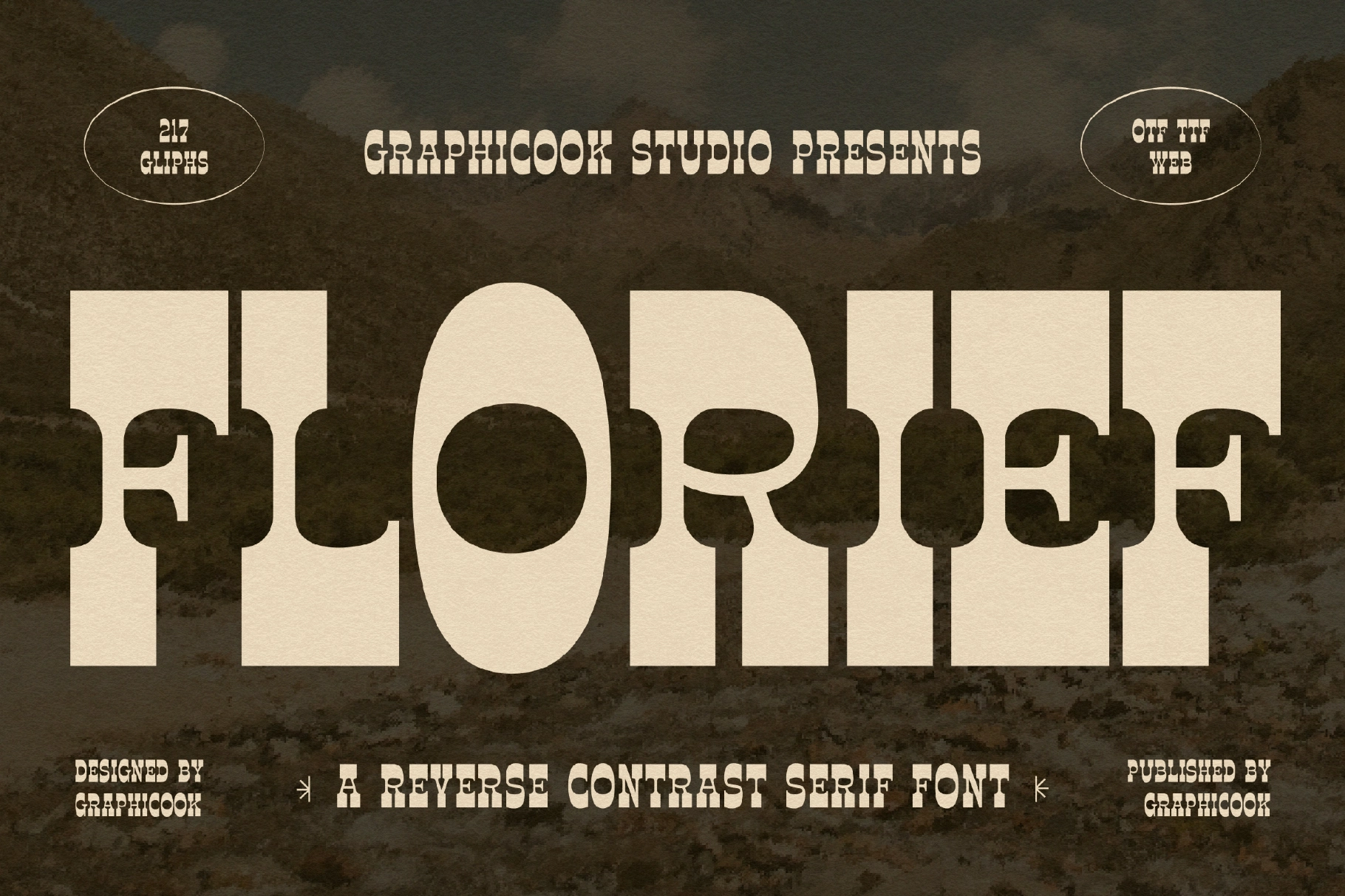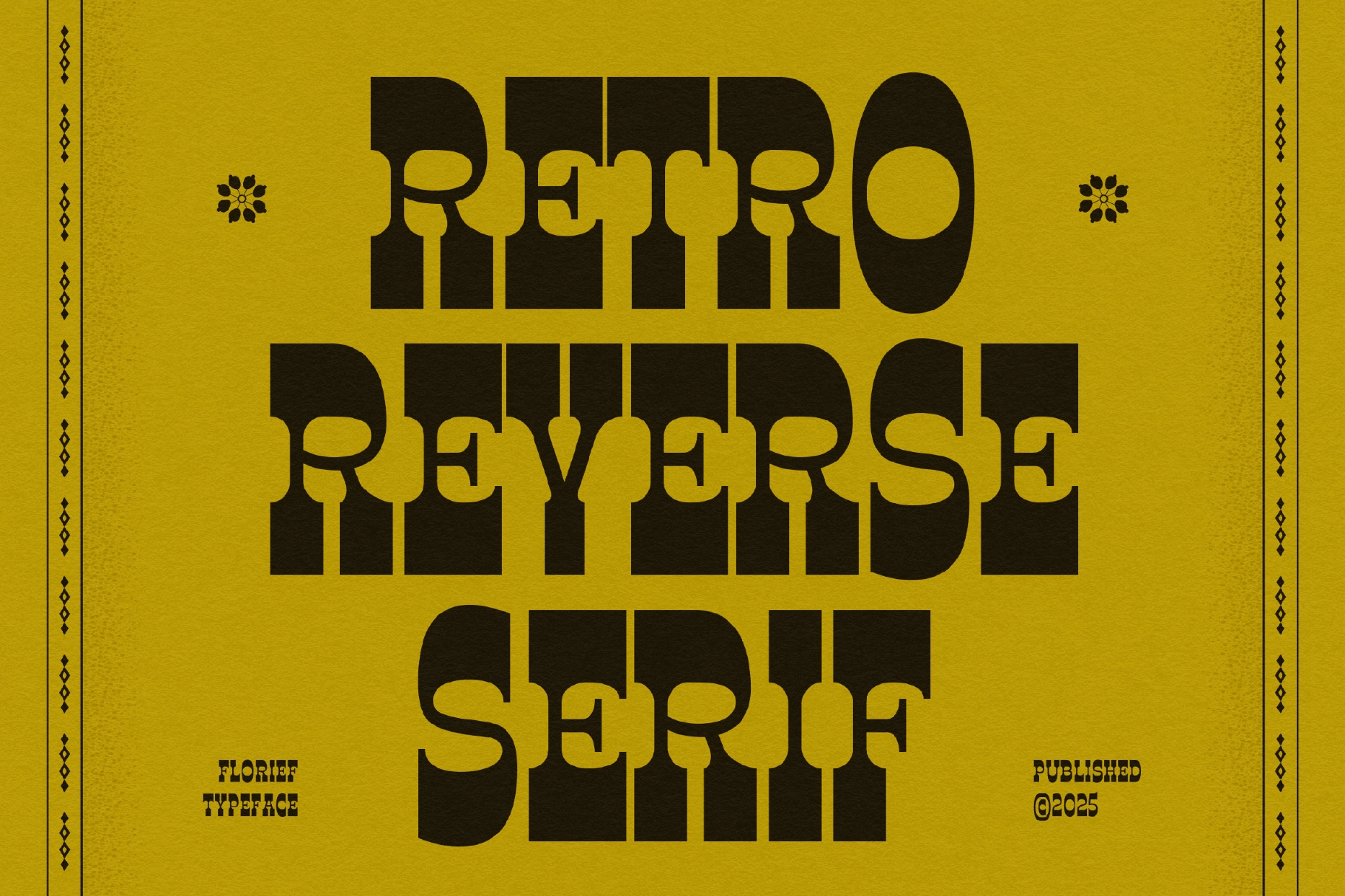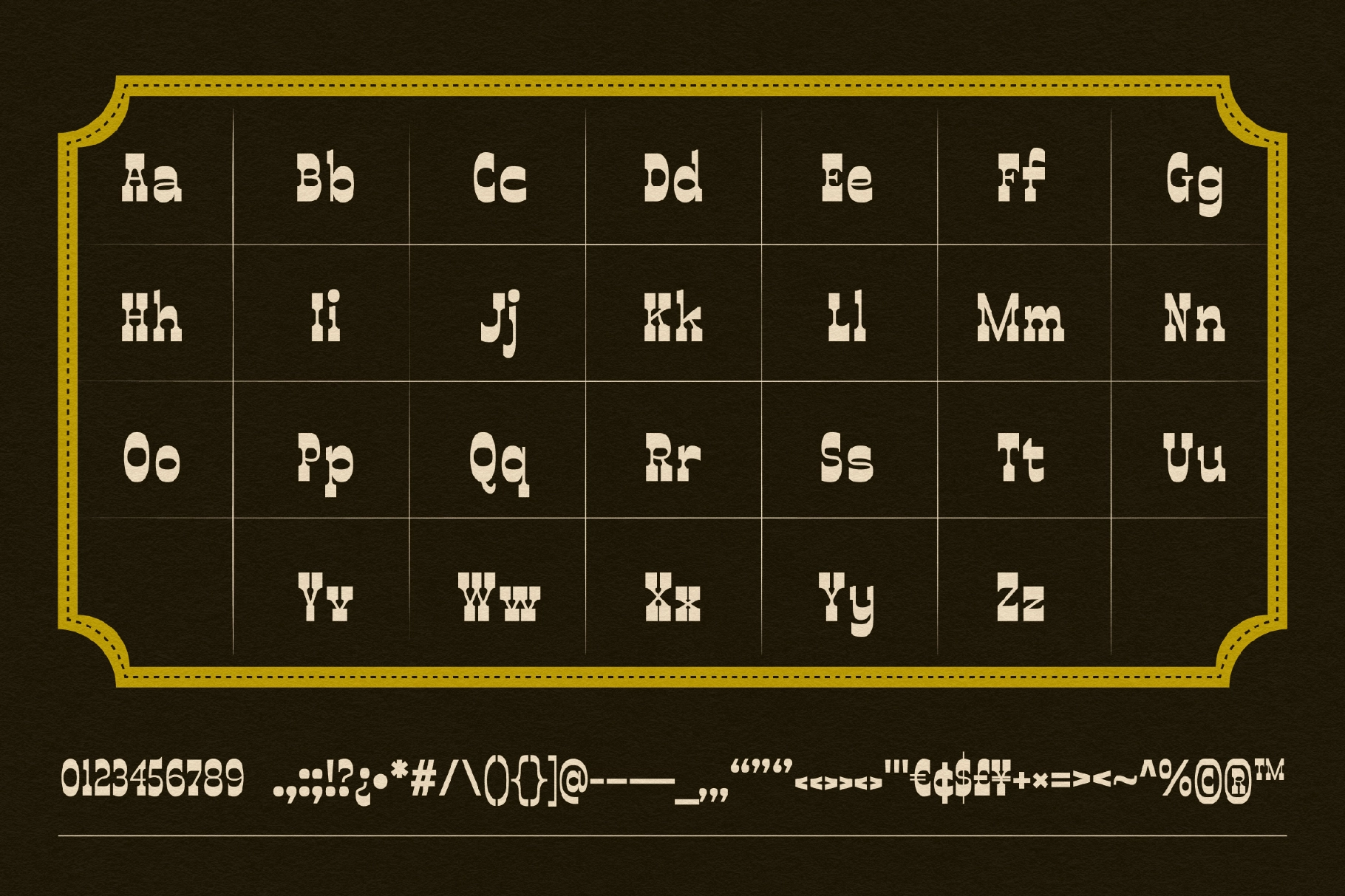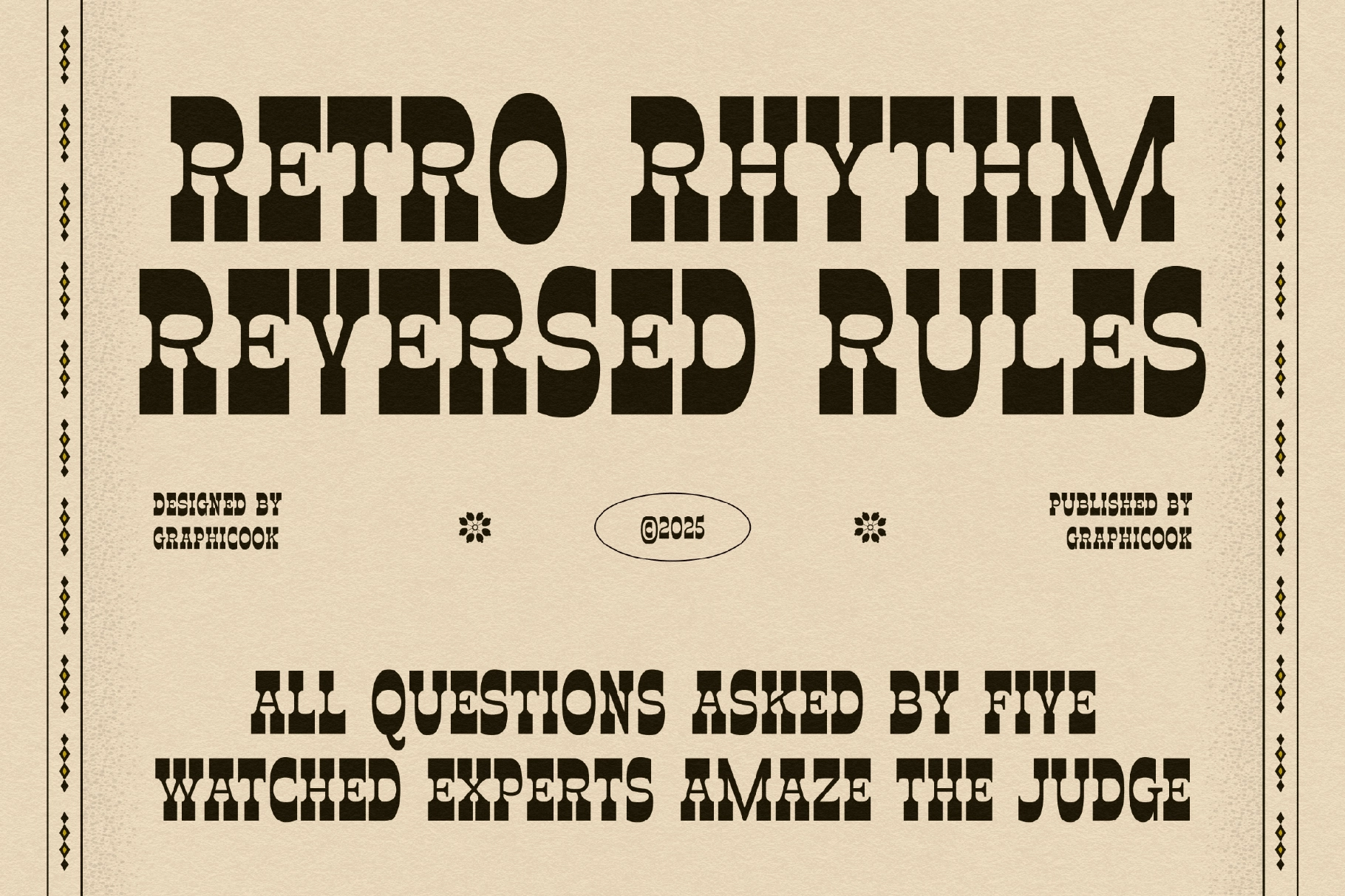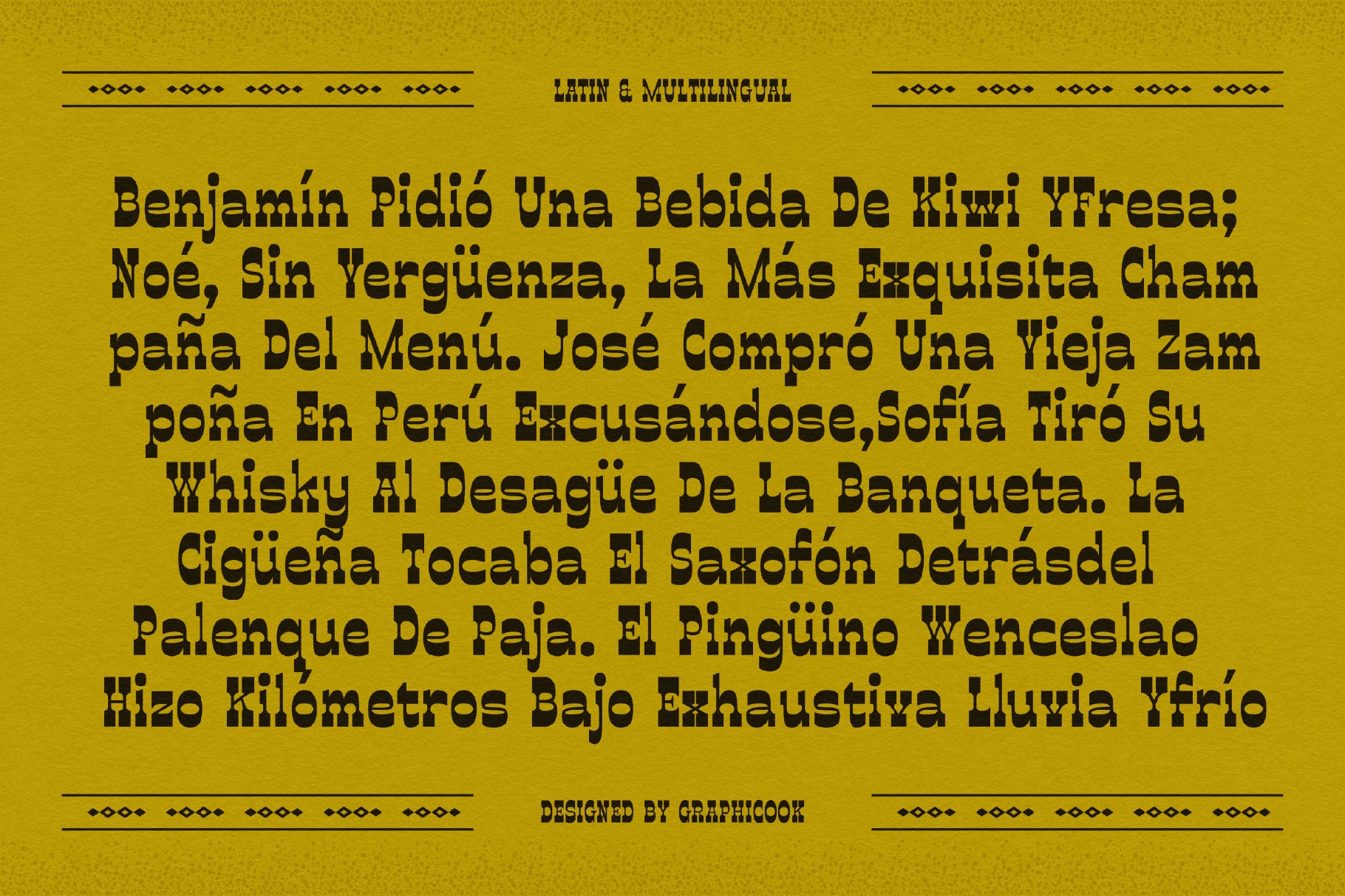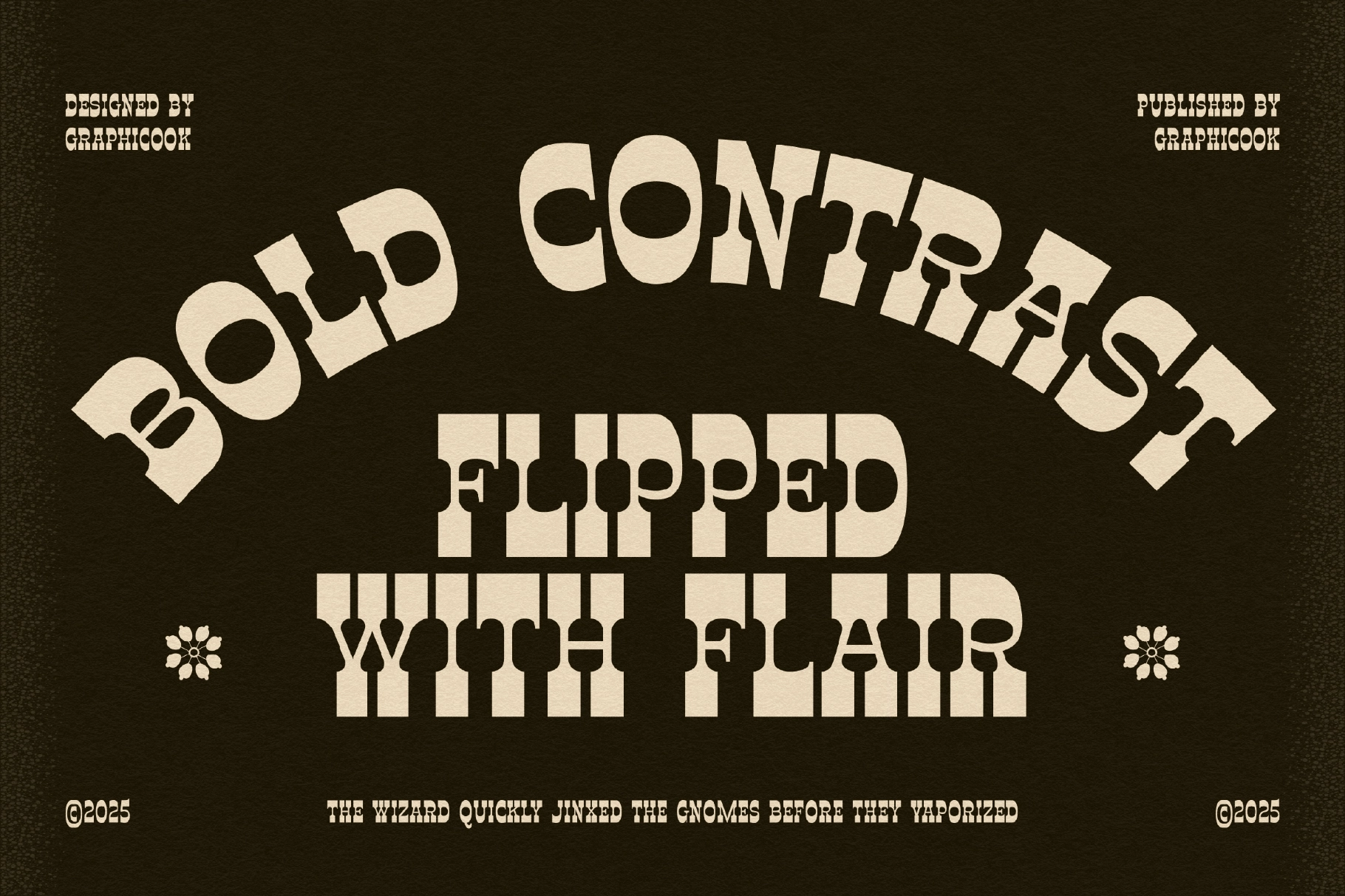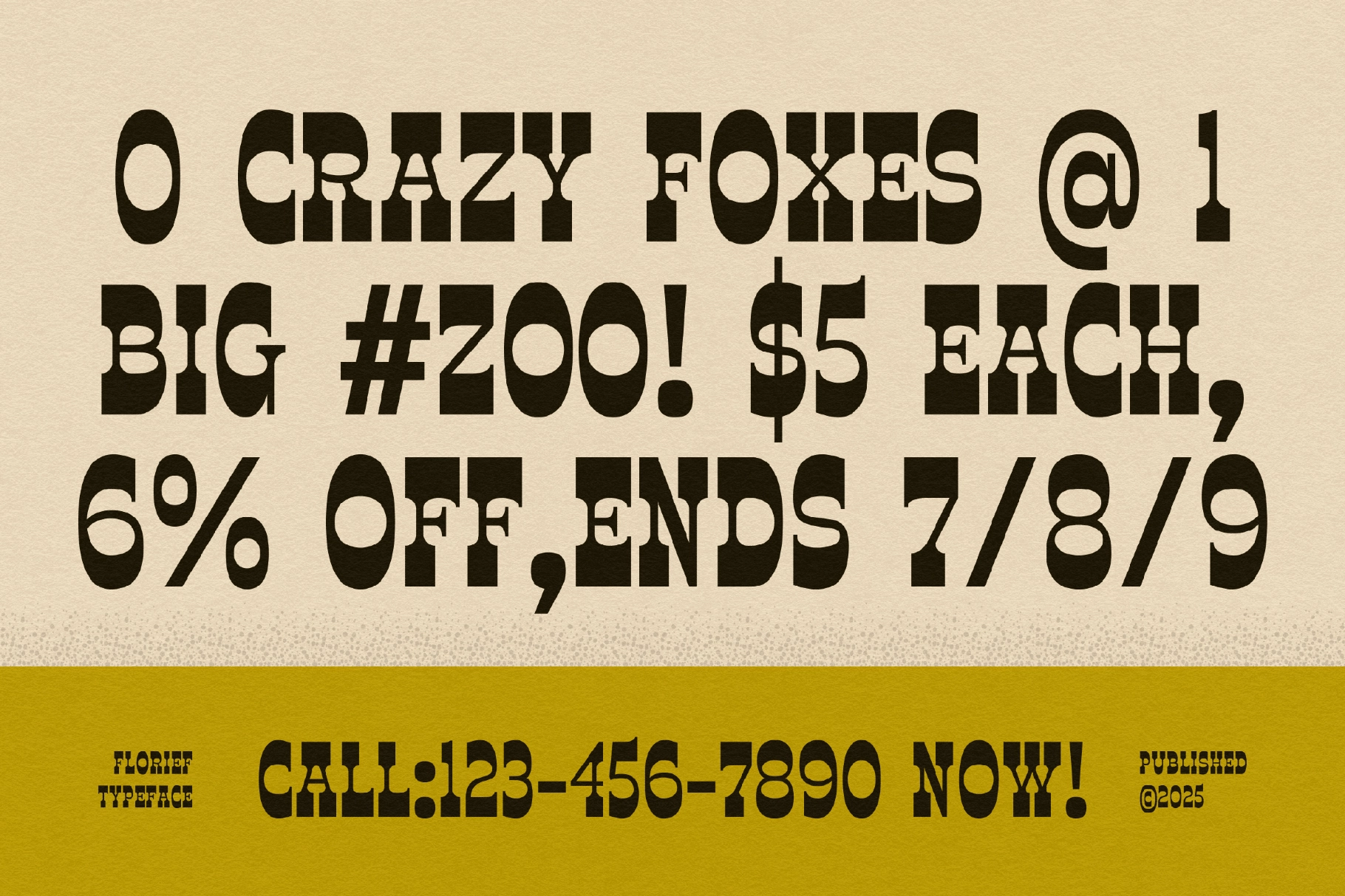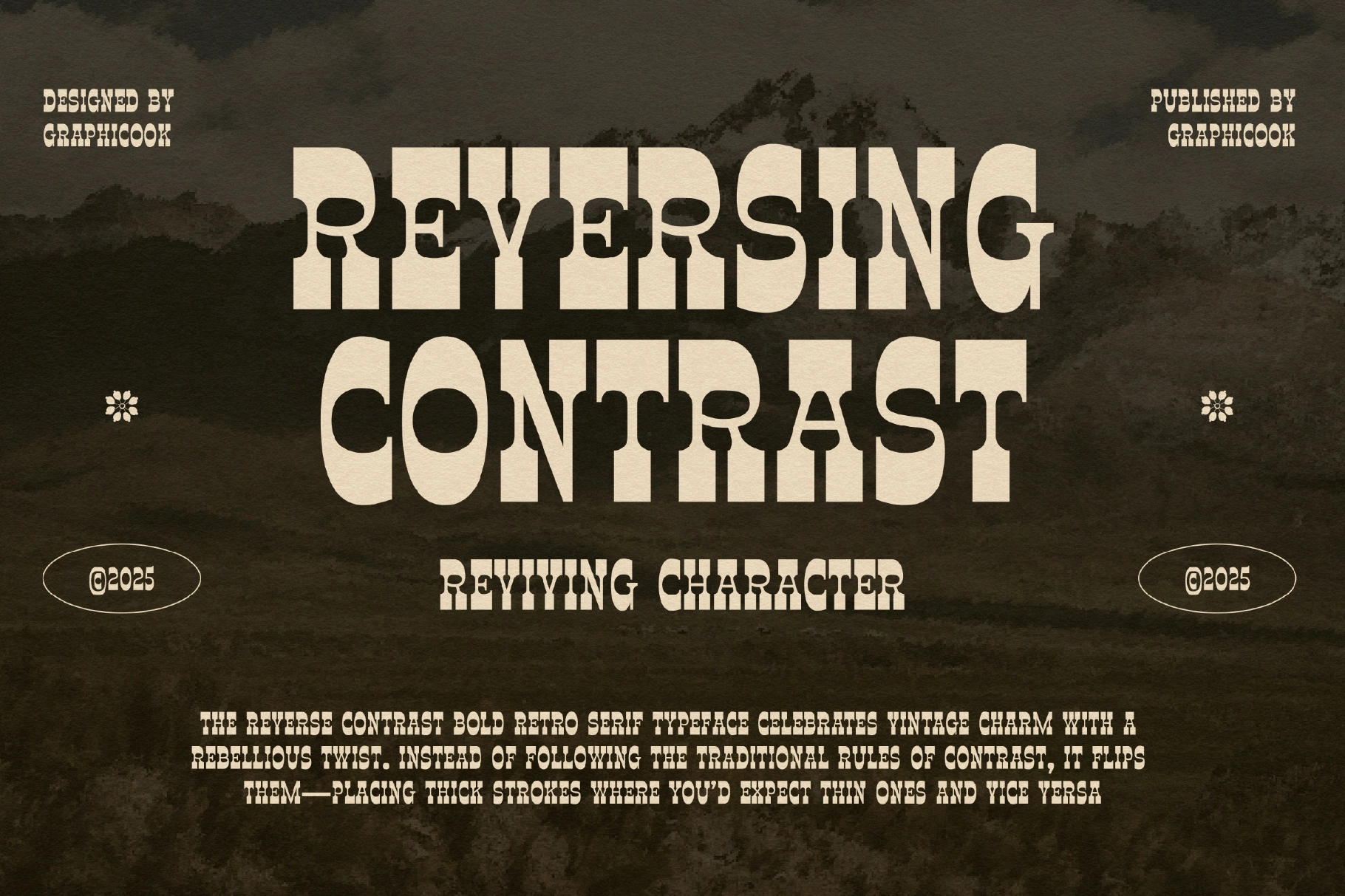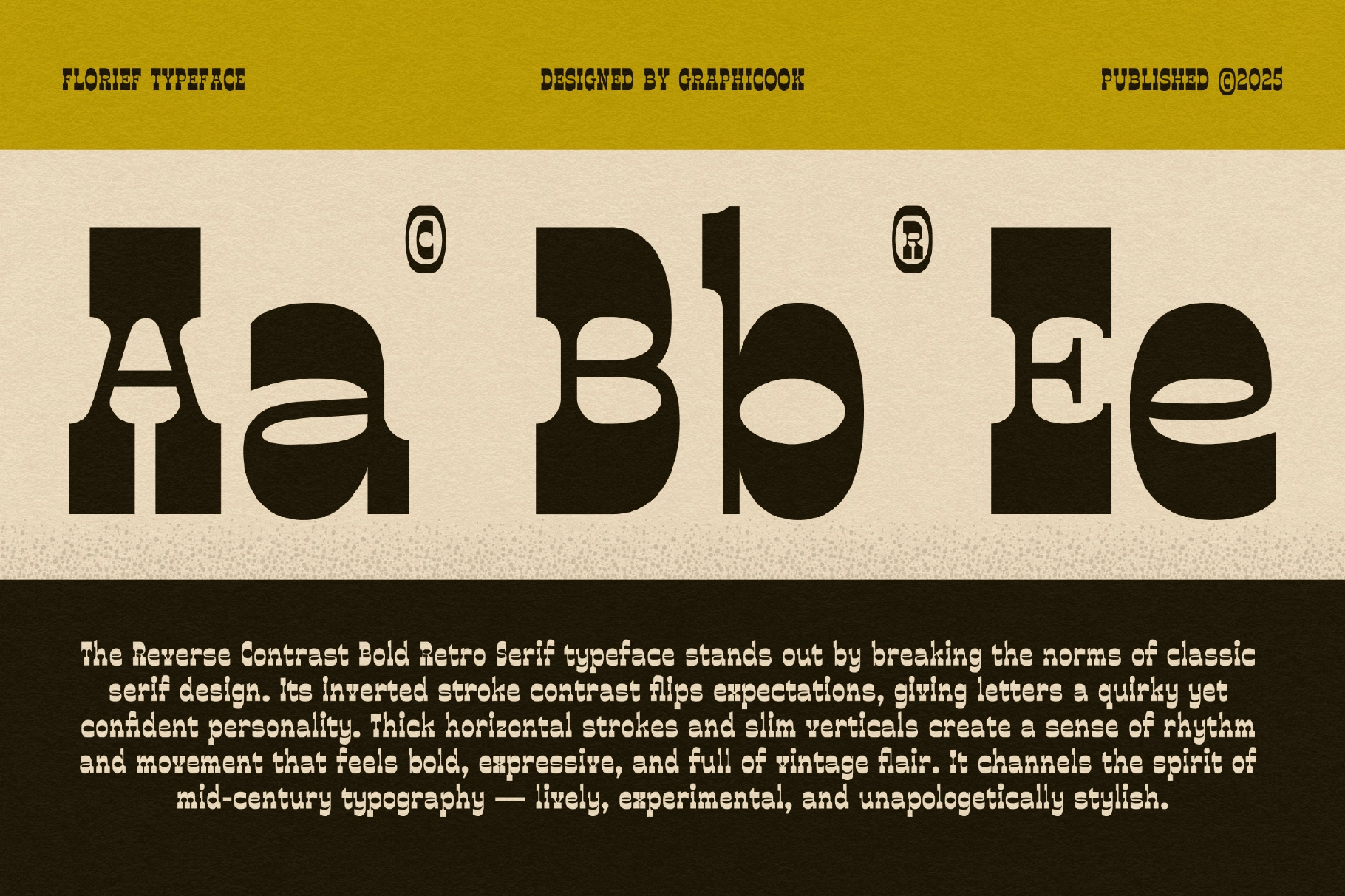
Florief - Reverse Contrast Serif Font
Florief
Florief – Reverse Contrast Serif Font is a bold and unconventional display typeface designed to make a powerful visual impact. Featuring dramatic reverse contrast—thick horizontal strokes paired with slimmer verticals—Florief breaks traditional serif rules to create a striking and expressive typographic voice.
With its edgy yet vintage-modern personality, Florief captures the spirit of retro typography while maintaining a confident contemporary presence. The strong, sculptural letterforms give your designs an iconic and unmistakable character, making it ideal for posters, branding, editorial layouts, album covers, packaging, headlines, and statement graphics.